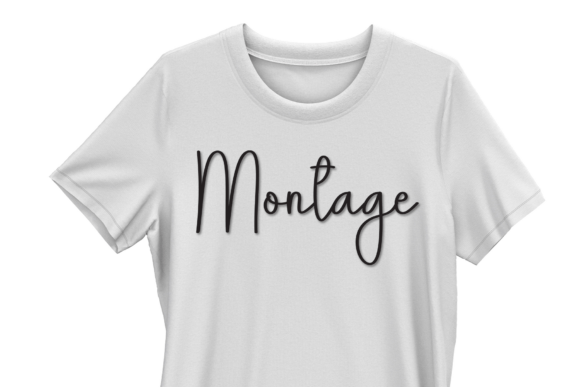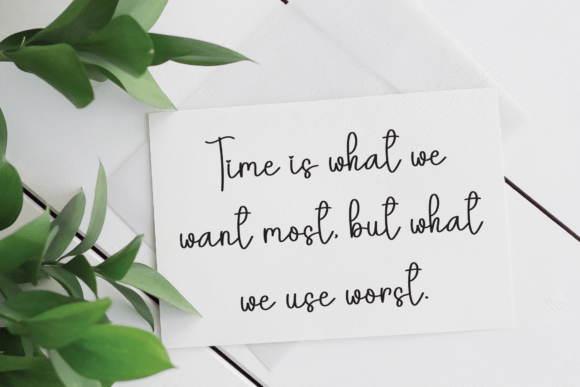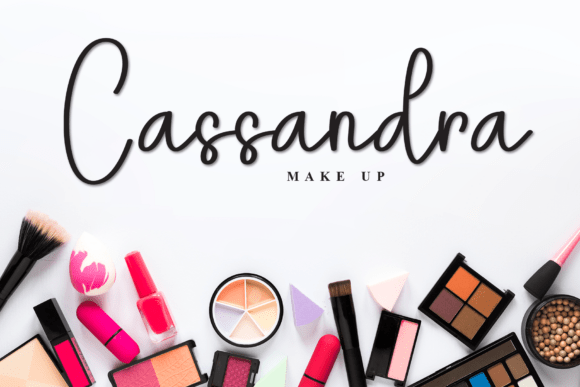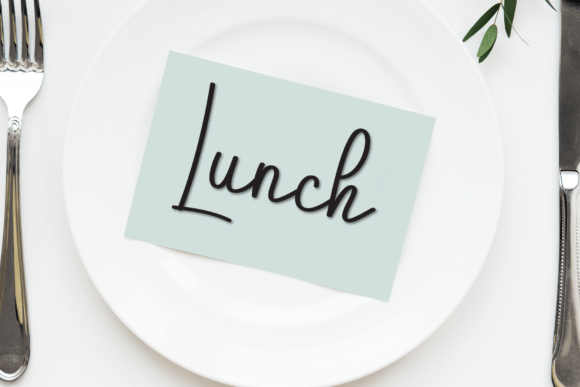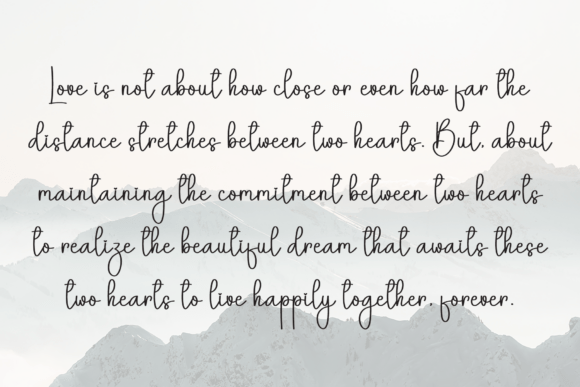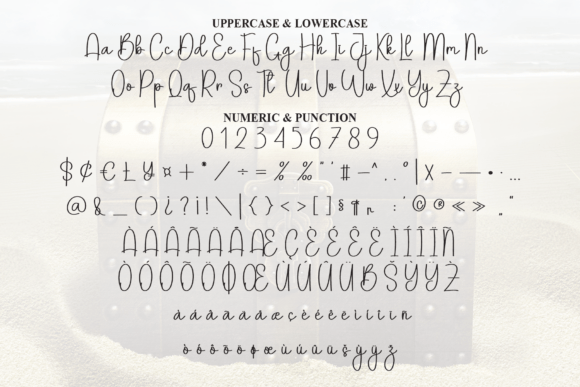
The Art of Handcrafted Design: Introducing Bounty Font
Imagine you’re sitting at your desk, surrounded by paintbrushes, canvases, and a blank piece of paper. You pick up a brush and begin to create, letting the strokes of your brush dance across the page in a beautiful, flowing motion. This is the essence of hand-painted calligraphy, and it’s exactly what the Bounty Font captures.
Bounty Font is a stylish script font designed to add a touch of artistic flair and contemporary elegance to your designs. Whether you’re creating logos, invitations, packaging, or social media graphics, this font is the perfect addition to your toolkit. Its fluid brush strokes, dynamic curves, and expressive letterforms make it a valuable asset for designers looking to create visually striking and sophisticated designs.
With its natural flow and vibrant character, the Bounty Font delivers both visual impact and versatility, making it an ideal choice for designers who want to elevate their work and stand out from the crowd.
Bounty Font Key Features
- Unique Characteristics: The font features a unique, modern design with clean lines, rounded edges, and a friendly feel, making it suitable for various design projects, including corporate branding, advertising, and digital media.
Bounty Font Review
I’ve had the chance to work with Bounty Font, and I must say it’s a solid addition to any designer’s toolkit. ✨ Here are some of the things that stood out to me:
- Unique character set: Bounty Font offers a quirky, hand-drawn feel that’s perfect for creative projects or brands looking to stand out.
- Good legibility: Despite its decorative nature, Bounty Font is still easy to read, even at smaller font sizes.
- Extensive language support: With over 200 languages supported, Bounty Font is a great choice for projects that require a high degree of cultural sensitivity.
- Limited font weight options ⚠️: Bounty Font only comes in a few different weights, which may limit its versatility in certain design applications.
- Some characters may not render correctly ⚠️: I encountered a few instances where certain characters, like the ampersand, didn’t render as expected.
Overall, I think Bounty Font is a great choice for designers who want to add a touch of whimsy to their projects. While it’s not perfect, its unique character set and good legibility make it a solid addition to any toolkit.
The Bounty Font is a great choice for creating bold and eye-catching headlines. Use it for:
- Marketing materials, such as brochures and flyers.
- Branding and logo designs.
- Editorial content, such as blog posts and articles.
Remember to pair the Bounty Font with a clear and easy-to-read body font to ensure maximum readability.